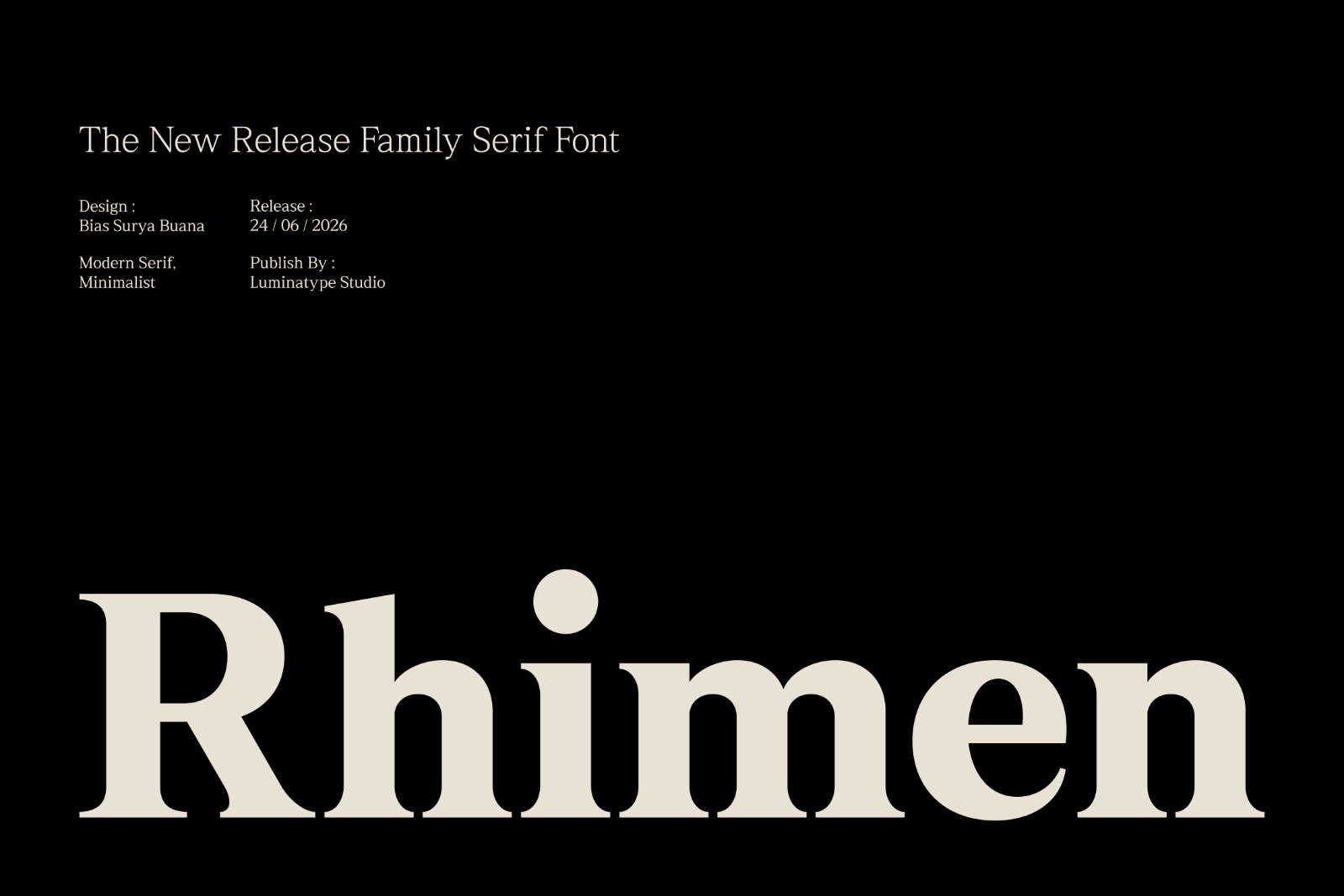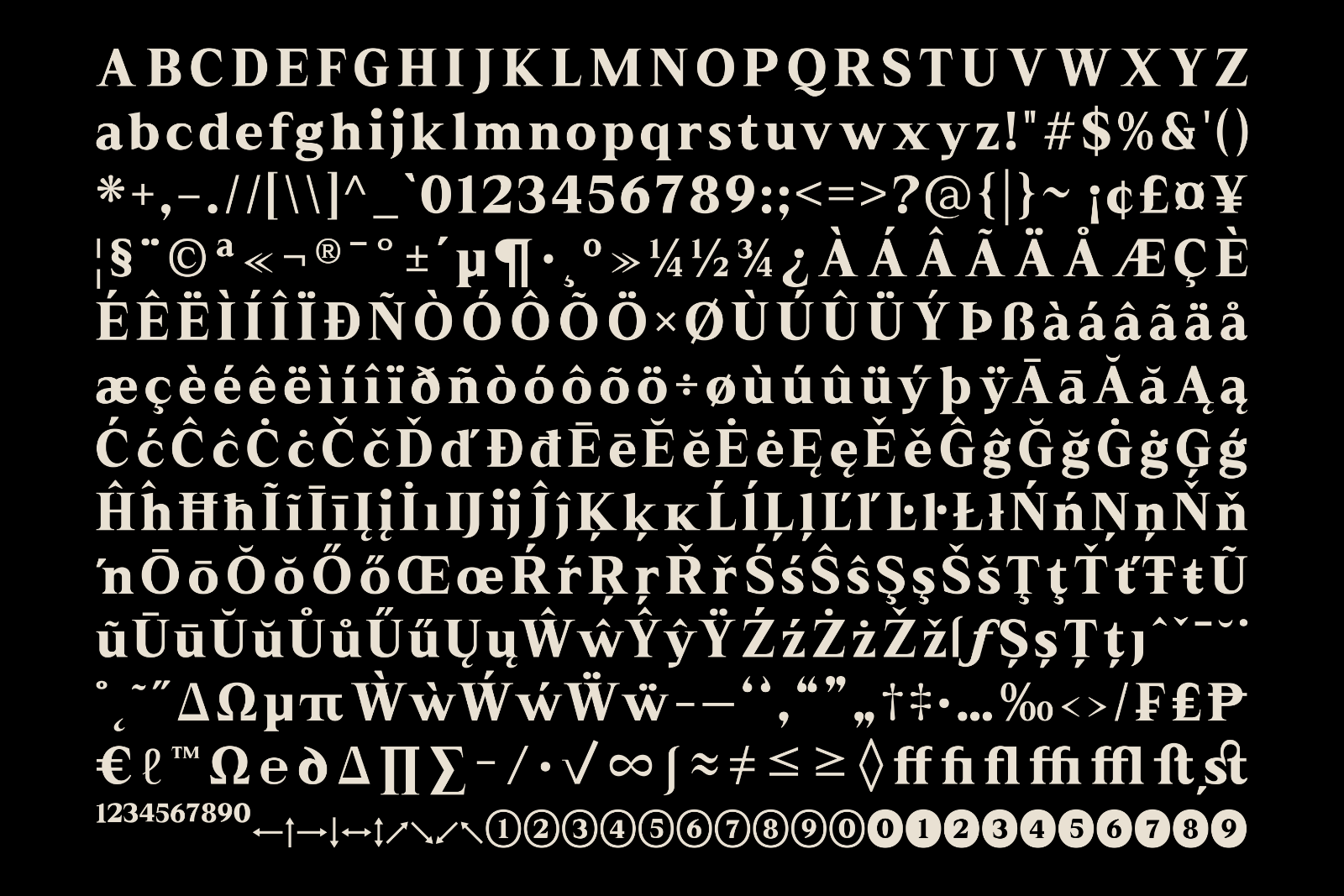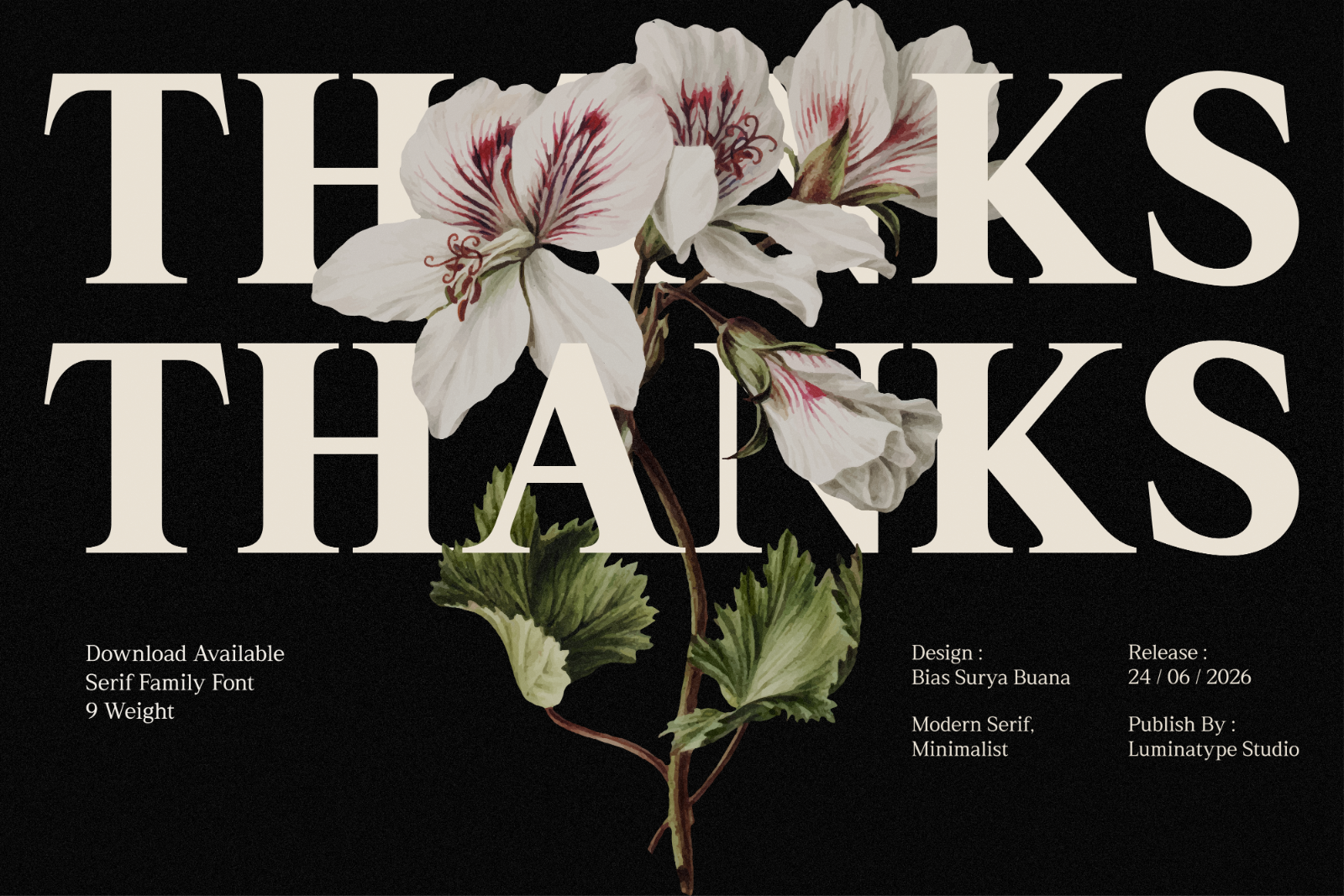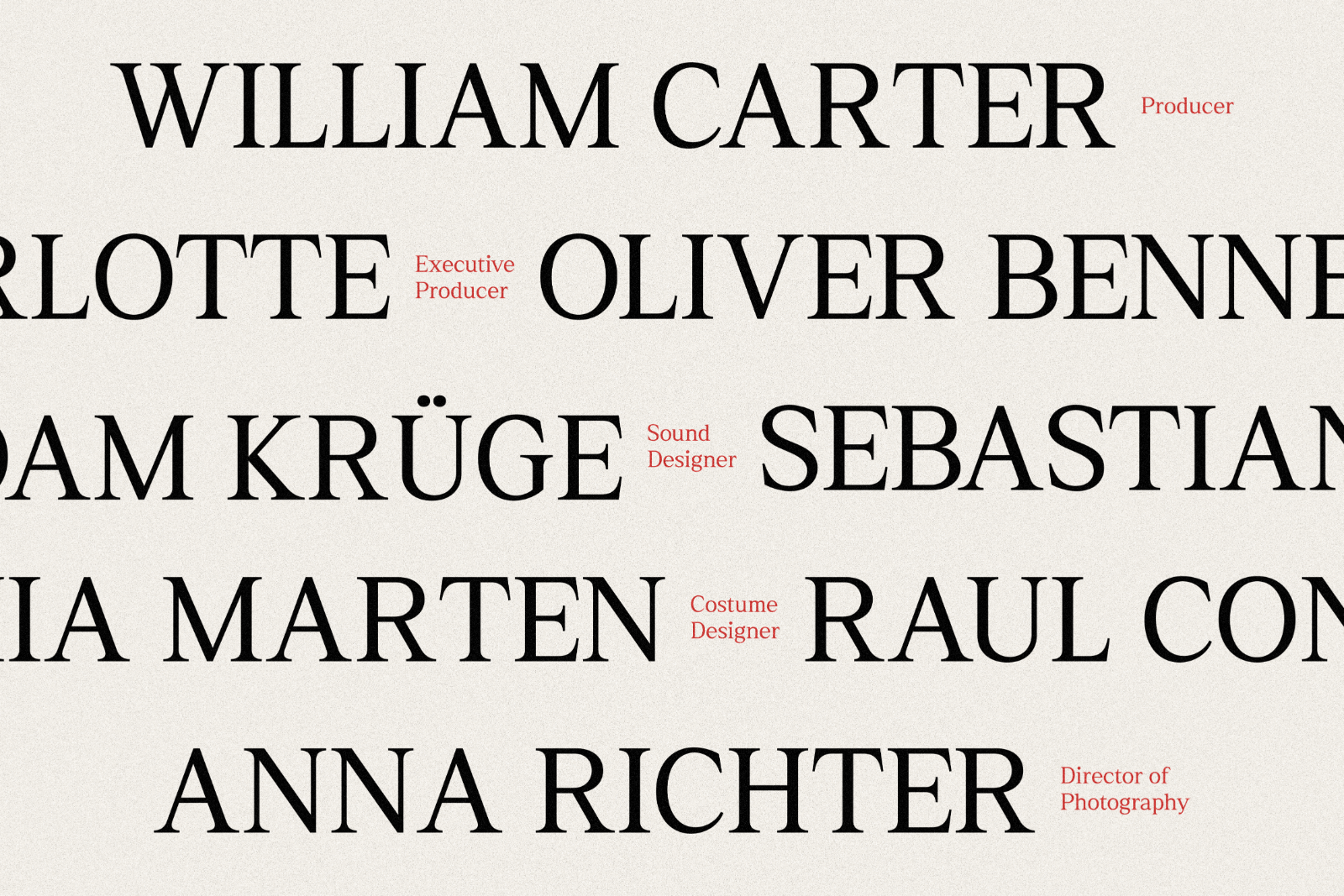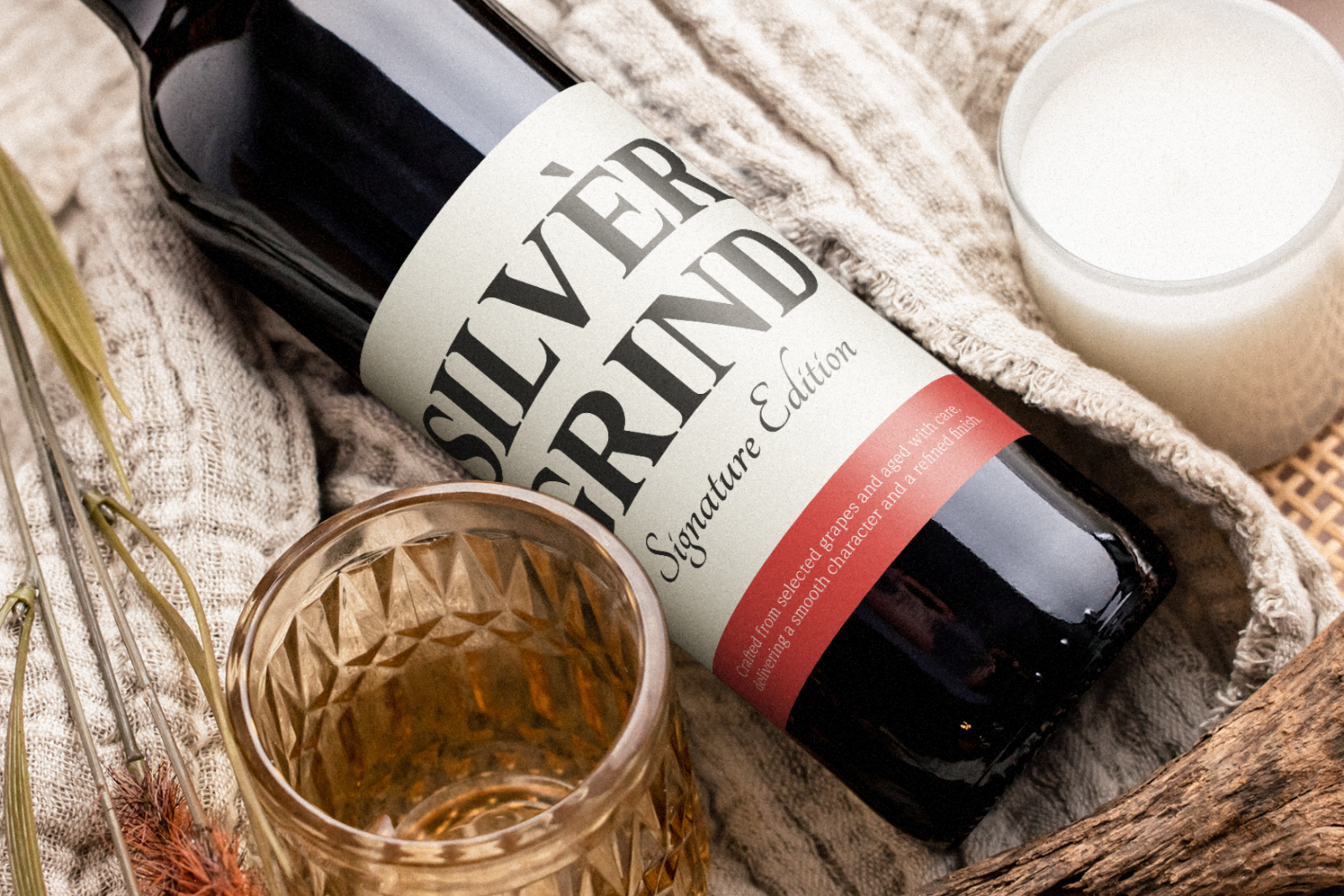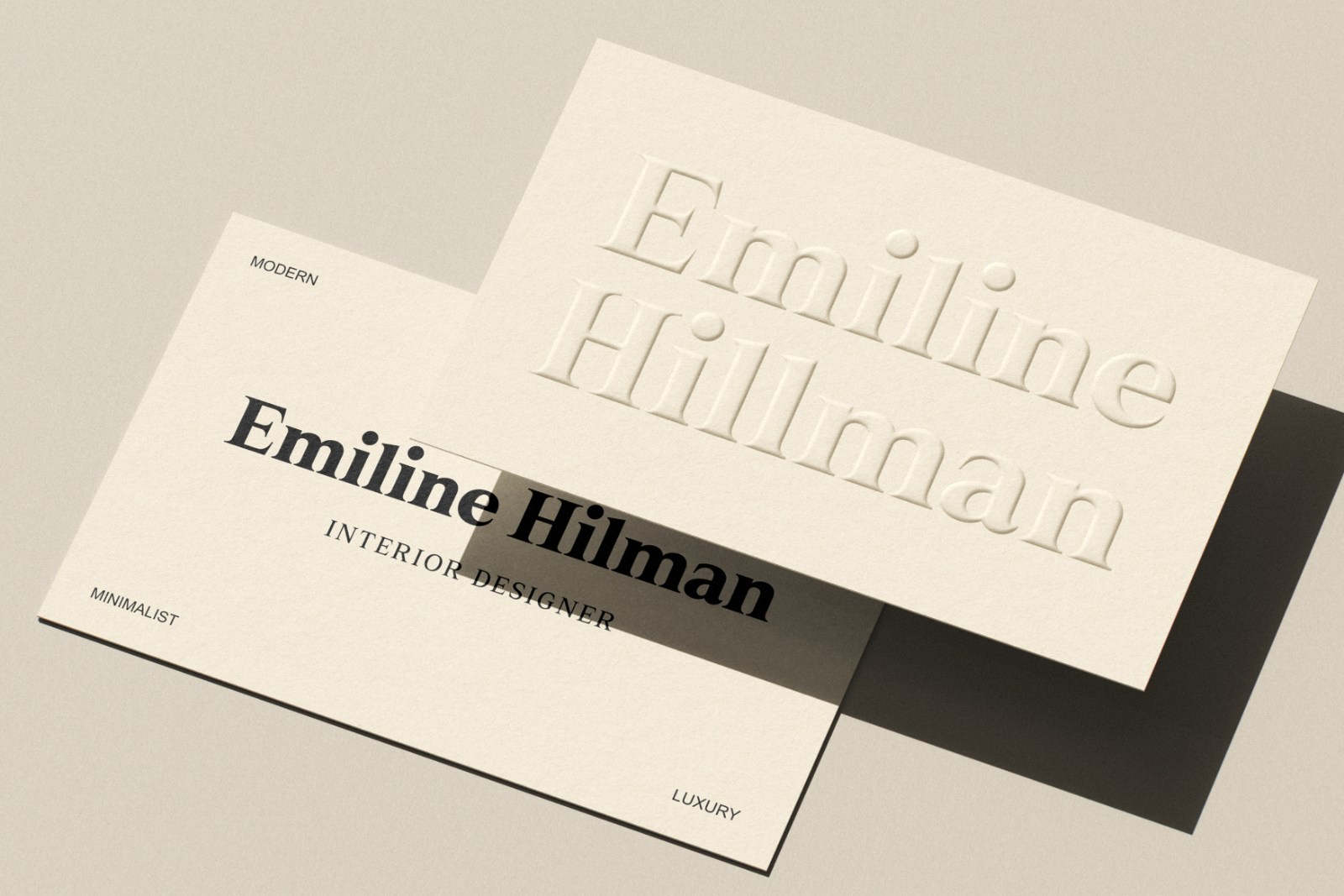
Rhimen is a sophisticated serif typeface designed by Bias Surya Buana and published by Luminatype Studio. Blending timeless elegance with a contemporary approach, Rhimen is crafted to deliver a refined and distinctive visual presence across a wide range of creative applications.
Built as a complete family of 9 weights, ranging from Thin, Extra Light, Light, Regular, Medium, Semi Bold, Bold, Extra Bold, to Black, Rhimen offers exceptional flexibility for creating strong typographic hierarchy and cohesive design systems. Each weight has been meticulously developed to maintain consistency, readability, and character while providing the versatility needed for both subtle and bold expressions.
With its graceful proportions, sharp details, and confident personality, Rhimen performs beautifully in editorial design, luxury branding, logos, packaging, invitations, and digital interfaces. Whether used for elegant headlines or sophisticated body text, Rhimen brings clarity, style, and enduring character to every design project.